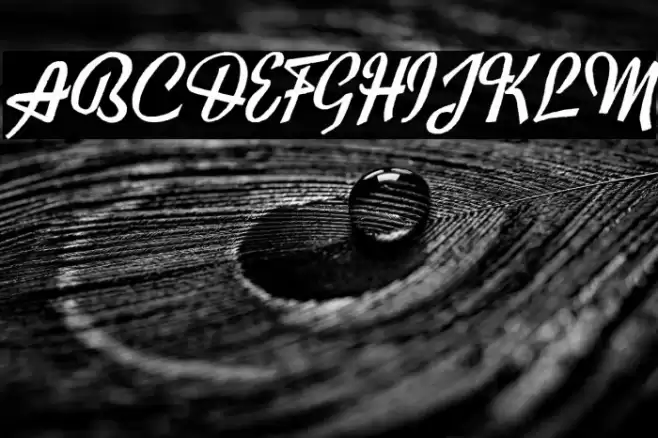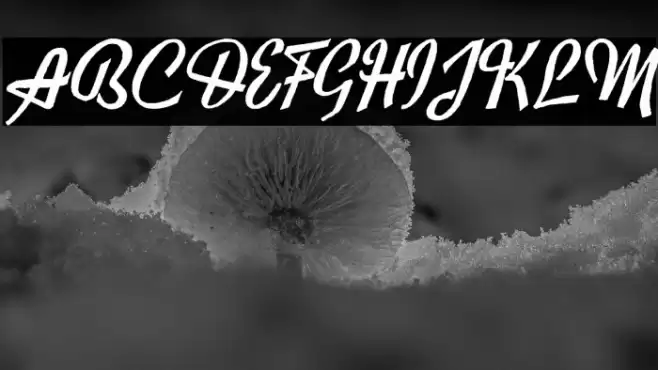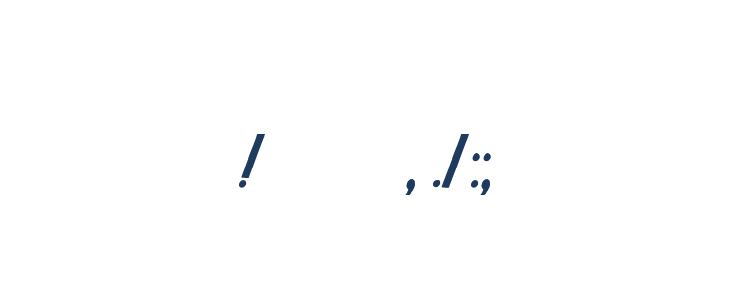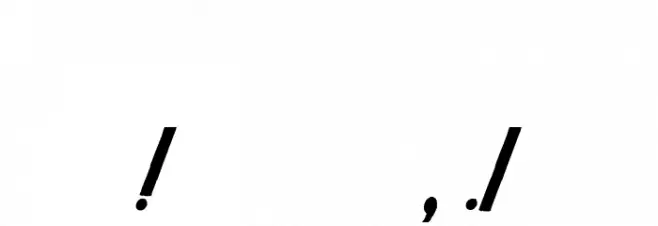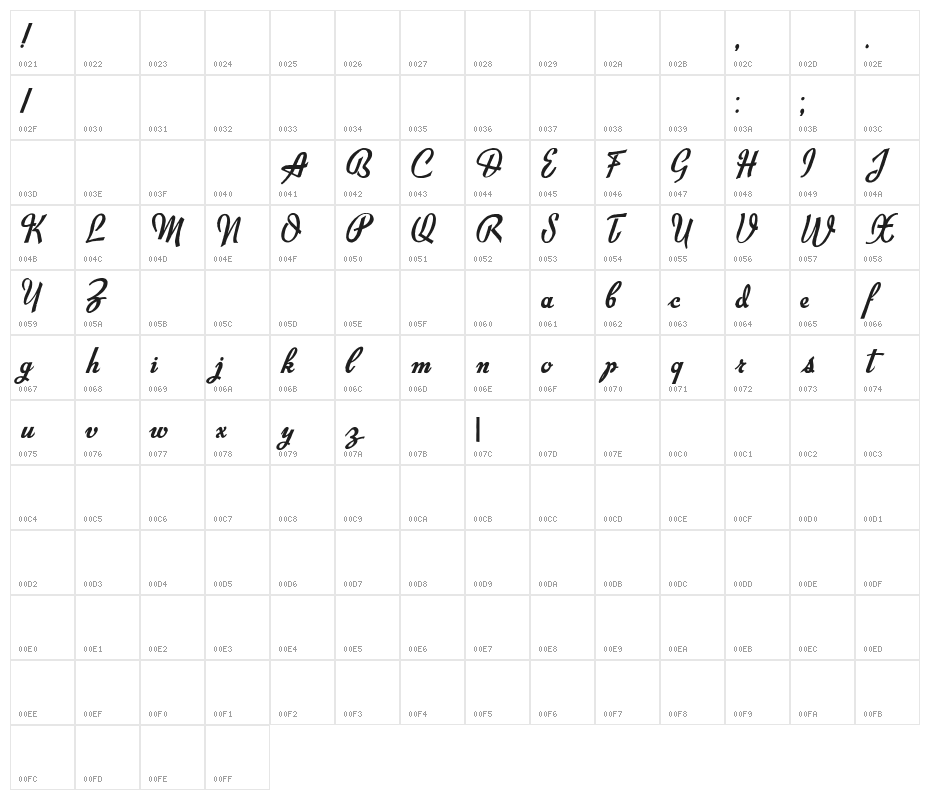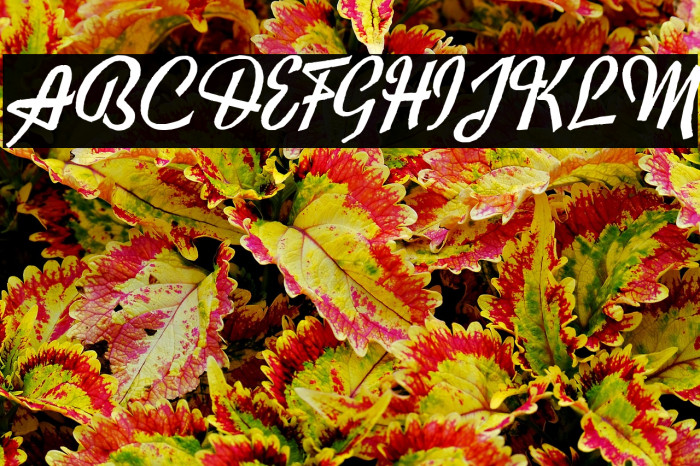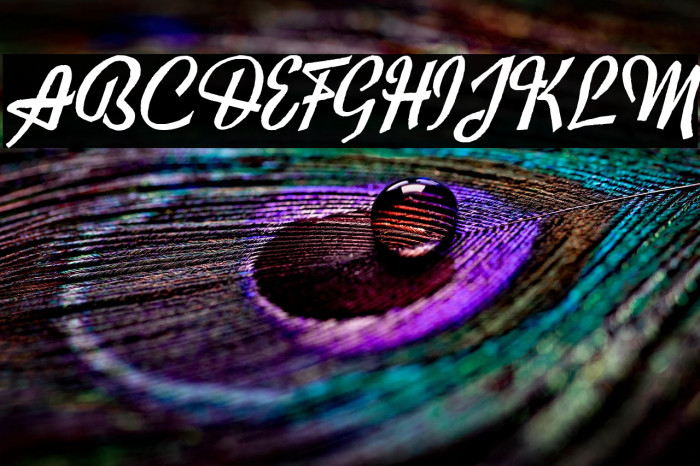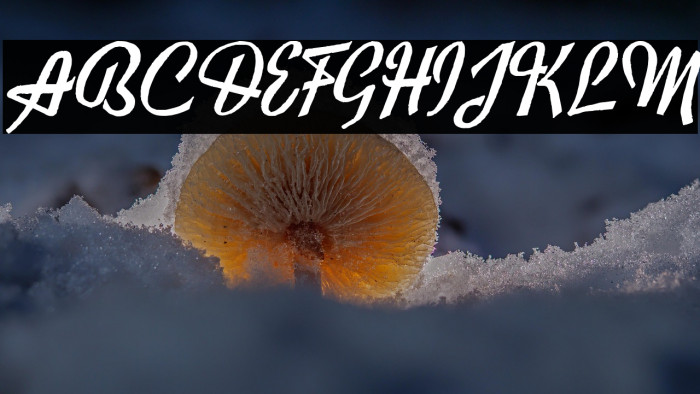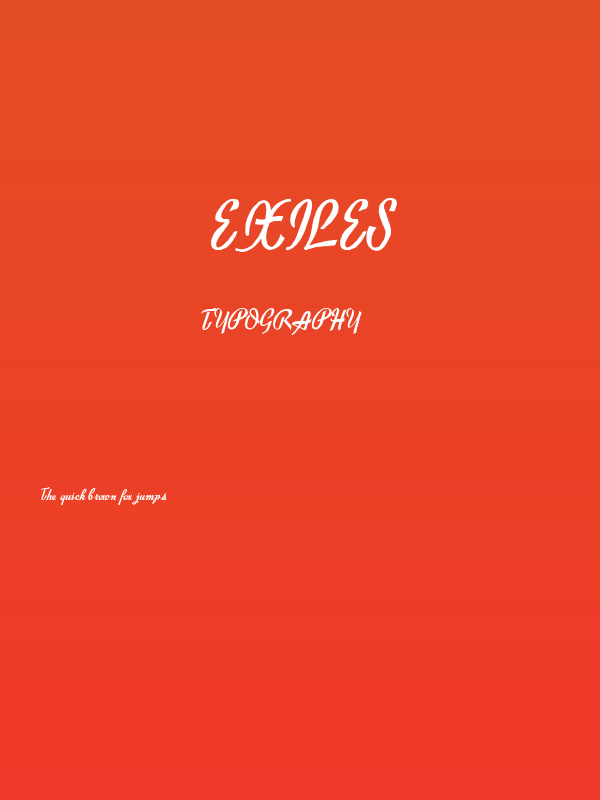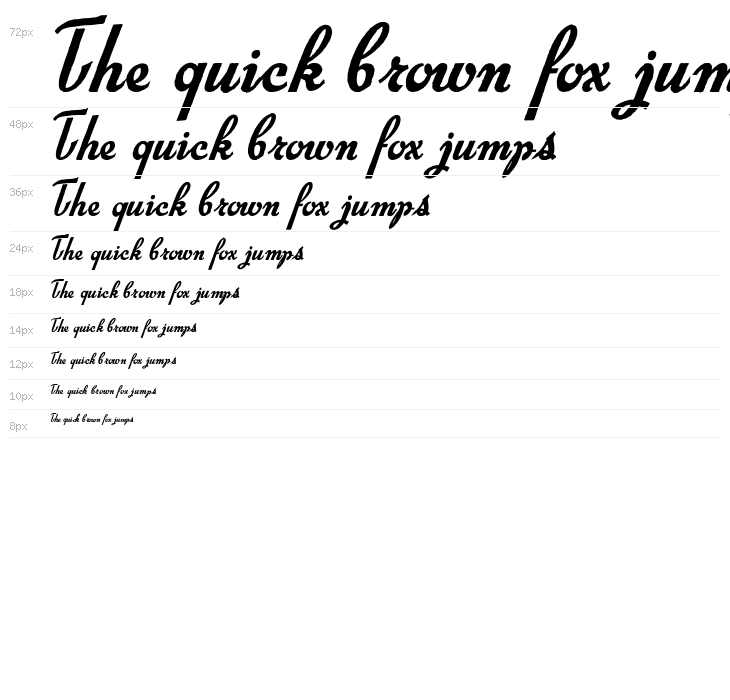
Exiles Font
Exiles Description
This font features a bold, cursive style with a strong emphasis on fluidity and elegance. The uppercase letters are characterized by sweeping curves and dramatic flourishes, giving them a dynamic and expressive appearance. The lowercase letters maintain a consistent flow, enhancing readability while retaining the decorative nature of the script. The numerals and special characters are designed to match the overall aesthetic, ensuring a cohesive look across all text elements. This font's bold strokes and artistic flair make it suitable for projects that require a touch of sophistication and creativity.
A bold, cursive font with elegant, sweeping curves and expressive flourishes from Uncategorized fonts.
- Font: Exiles
- Proposed Projects: Ideal for wedding invitations, greeting cards, branding, and logo design where a sophisticated and artistic touch is desired.
- Use Case: Logos, Headlines, Invitations